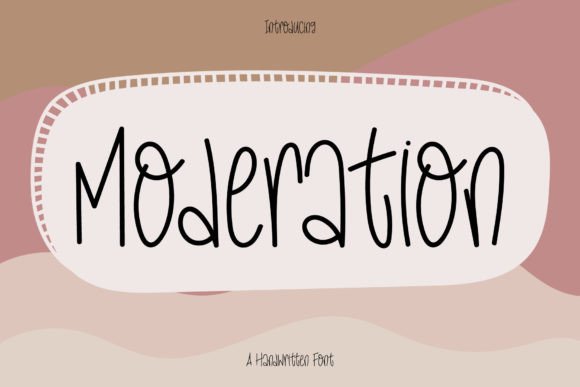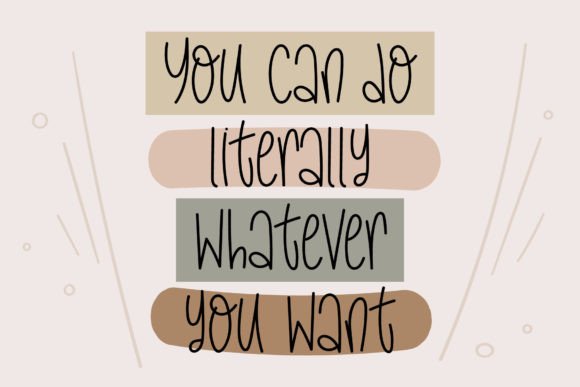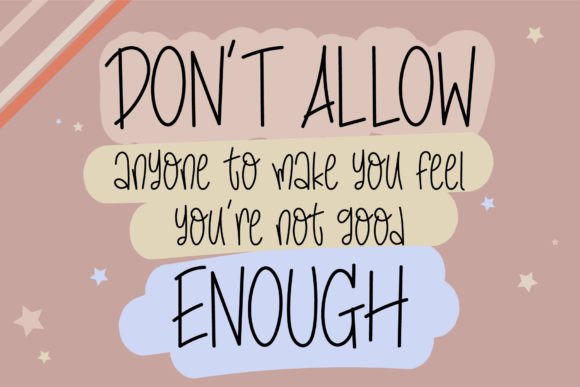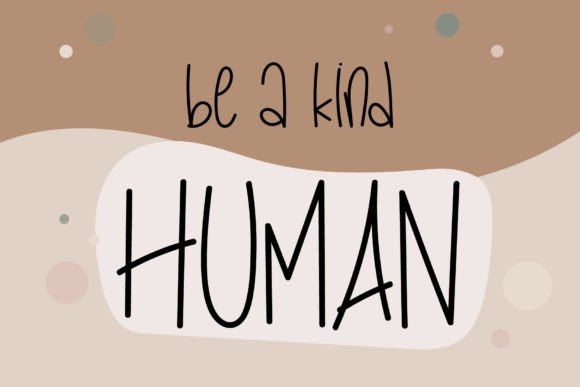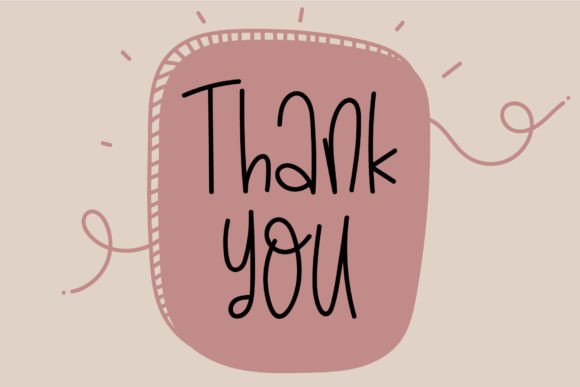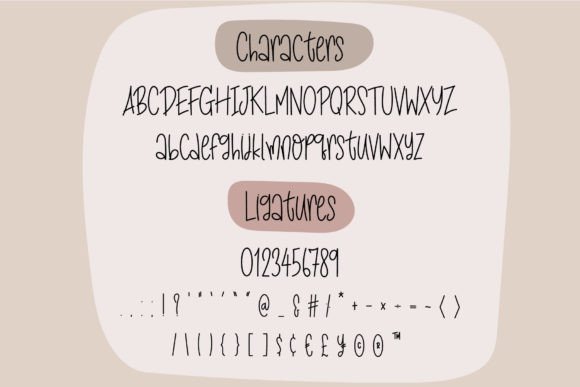
Moderation Font
About Moderation Font
“Moderation” is not just a font; it’s a simple and joyful handwritten script that exudes casual charm. Its down-to-earth appearance adds a touch of approachability and readability, making it an incredibly versatile choice for various contexts. Whether placed on busy backgrounds or used as a standalone headline, “Moderation” promises to look outstanding and bring a delightful touch to any design.
The simplicity of “Moderation” is a key feature that contributes to its down-to-earth charm. This font embraces a straightforward and easygoing style, making it accessible and friendly. Its joyful handwritten script adds a layer of warmth to your designs, creating a sense of comfort and familiarity.
The versatility of “Moderation” shines through its ability to adapt to different contexts. Whether your design calls for a busy background or a standalone headline, this font seamlessly integrates, proving its adaptability in diverse applications. Its readability ensures that your message is conveyed effortlessly, making it suitable for a wide range of design projects.
Imagine “Moderation” gracing the pages of a busy website, adding a touch of casual charm to the content. Picture it as a standalone headline, where its simplicity becomes a visual focal point that captures attention. This font is designed to be a reliable and outstanding choice, no matter the design context.
In summary, “Moderation” is a font that stands out for its simplicity, joyfulness, and versatility. Its handwritten charm brings a delightful and down-to-earth quality to your designs. Whether you’re working on digital interfaces, print materials, or any other creative project, let “Moderation” be the font that adds a touch of casual elegance and makes your designs truly outstanding.